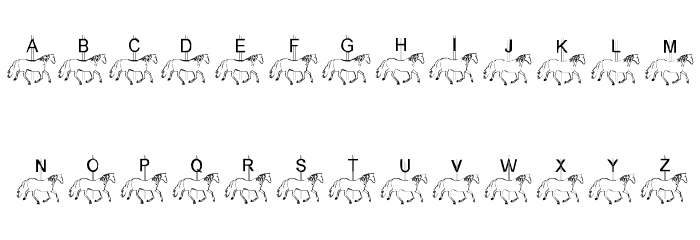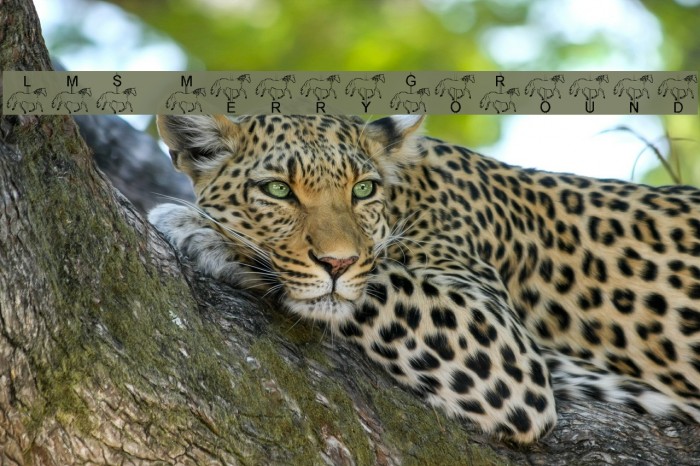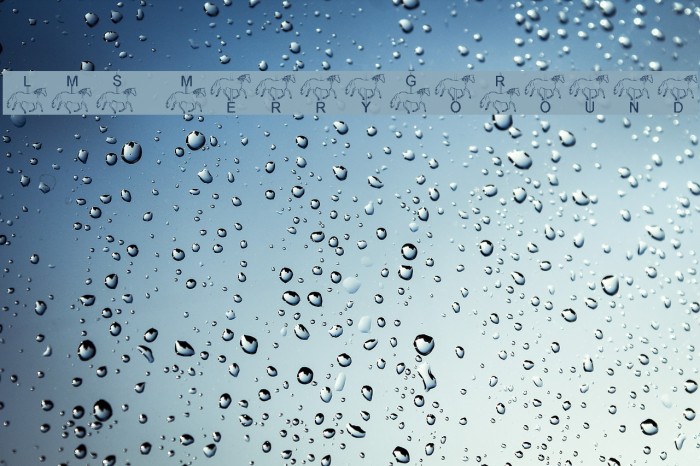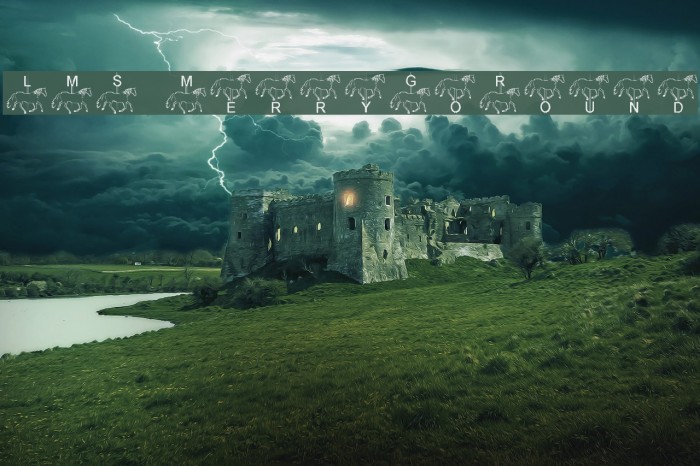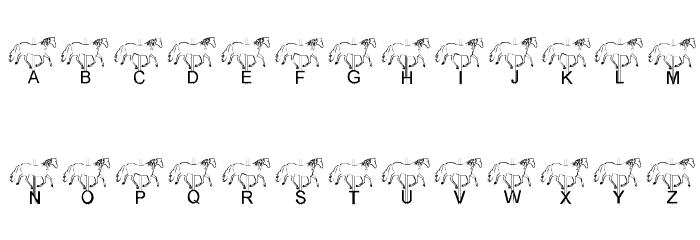
LMS Merry-Go-Round Font
LMS Merry-Go-Round Description
This decorative font features a whimsical and playful design, incorporating carousel horses as a prominent element. Each letter is creatively integrated with the horse motif, giving it a unique and artistic flair. The uppercase and lowercase letters maintain a consistent style, with the horses adding a dynamic and lively touch. The font is ideal for projects that require a fun and imaginative aesthetic, such as children's books, party invitations, or themed event posters. Its distinctive appearance makes it stand out, capturing attention with its charming and nostalgic feel.
A whimsical decorative font featuring carousel horses integrated with each letter from Uncategorized fonts.
- Proposed Projects: Ideal for children's books, party invitations, themed event posters, and playful branding.